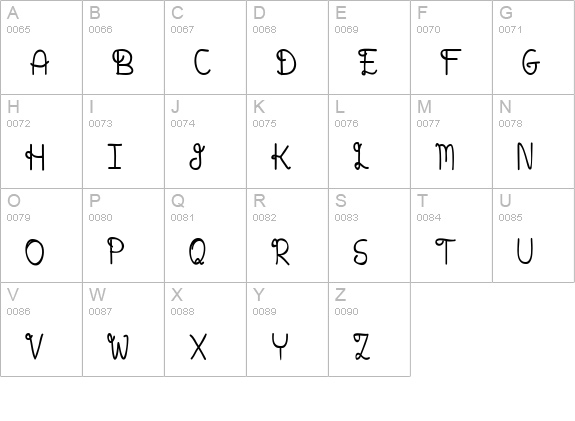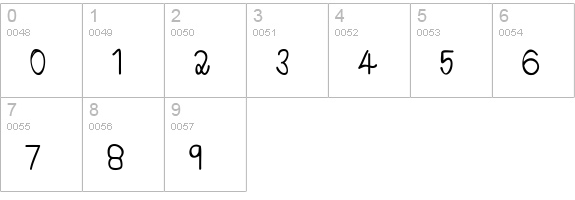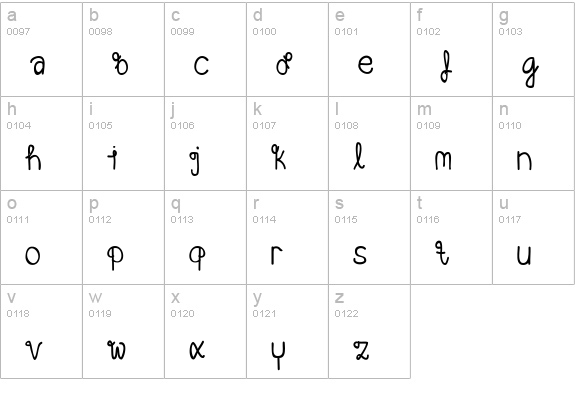
Introducing Soulmate, a font that will captivate your heart with its timeless elegance and enchanting curves. Designed to evoke a sense of romance and connection, Soulmate is the perfect companion for all your design projects. With its graceful strokes and delicate letterforms, Soulmate exudes a sense of harmony and compatibility. Its flowing lines and refined details create a truly captivating typographic experience that will leave a lasting impression on your audience. But what truly sets Soulmate apart is its availability; it is freely available to download at FontsMarket.com. Yes, you read that right - this exquisite font can be yours without any cost. We believe that beauty should be accessible to all, and Soulmate embodies this philosophy by offering its timeless charm to everyone. Whether you are designing wedding invitations, love letters, or romantic branding materials, Soulmate will add a touch of elegance and sophistication to your creations. Its versatility allows it to be used in a variety of contexts, from classical to contemporary, making it a truly versatile font that can adapt to any project. Immerse yourself in the world of Soulmate, where love meets typography. Download this enchanting font for free at FontsMarket.com and let it become your creative soulmate, guiding you towards design perfection.